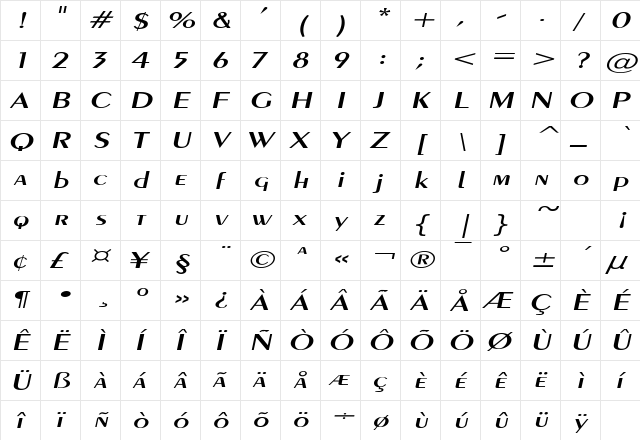
PenwinExtended Oblique
Design Context for PenwinExtended Typeface
PenwinExtended offers clean, dependable letterforms without strong stylistic allegiance, making it a practical choice for designers who need flexibility. The slanted form adds forward momentum and visual energy.